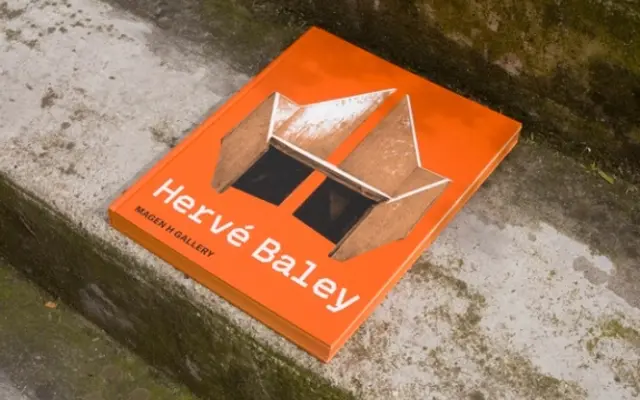
Anto Plot Lab
b•v-h type · André Baldinger & Toan Vu-Huu · 2022
Two experimental display styles derived from the angular Anto Plot geometric sans, designed by André Baldinger and Toan Vu-Huu.
Grown from a family originally commissioned for the contemporary art centre Bétonsalon in Paris, the Lab styles push the angular geometry of Anto Plot into more speculative territory. Each of the two styles ships with 818 glyphs, covering an extensive range of Latin languages alongside a full set of figure styles, fractions, circled and framed numbers, and alternate arrows via OpenType Stylistic Sets. Assisted by Jimmy Le Guennec and Fanny Hamelin, the pair designed the Lab in 2018 with a public release in 2022.
The Lab styles are described as experimental offshoots of the Anto Plot geometric sans, voluntarily angular in construction and derived from early brutal sans-serif proportions; their experimental nature places them firmly in the display category.